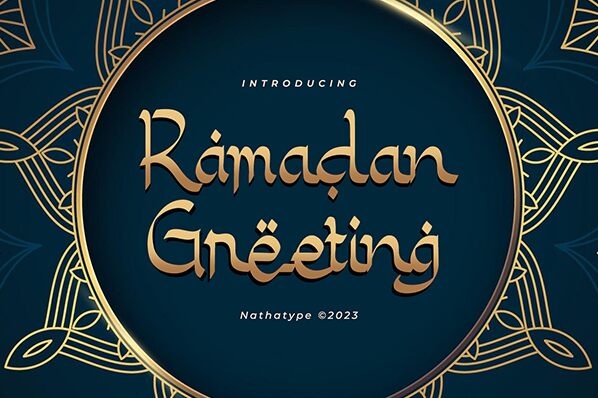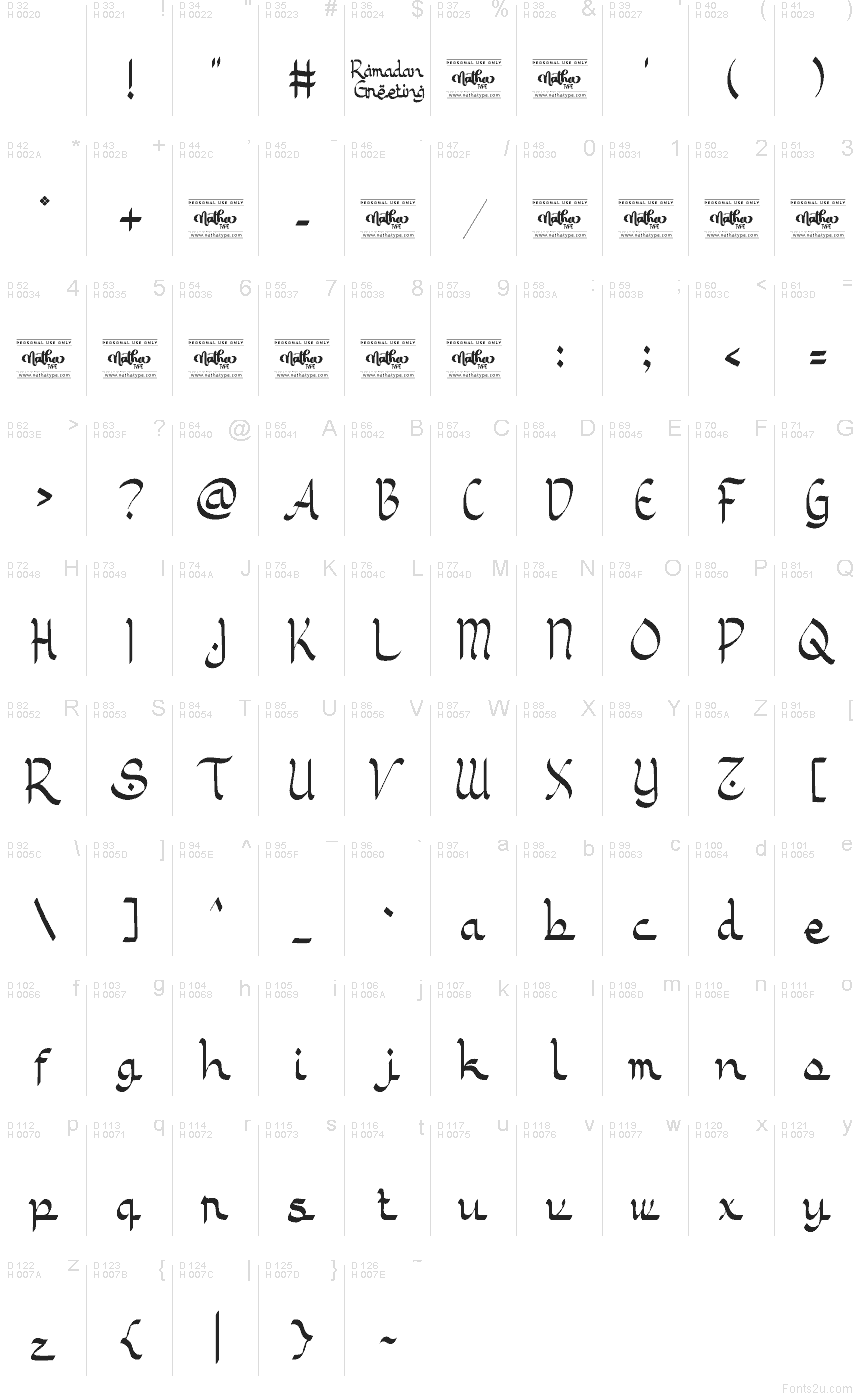
Ramadan Greeting Personal Use
Ramadan Greeting font by Nathatype is a free faux Arabic script typeface that instantly brings a warm, festive Middle Eastern feel to Latin lettering. The letters swoop and curl like inky calligraphy, with playful swashes and rounded strokes that feel both celebratory and inviting, making greetings and headlines feel handcrafted rather than mechanical. There’s a gentle rhythm to the shapes that reads clearly at larger sizes while still suggesting traditional ornament.
Using Ramadan Greeting, this free font shines on Ramadan and Eid greeting cards, social media posts, event invitations, packaging for sweets or dates, banners, and YouTube or stream overlays for holiday content. The expressive curves draw attention, so let it handle the headlines and pair it with a simple geometric sans-serif in smaller text to keep everything legible and balanced.